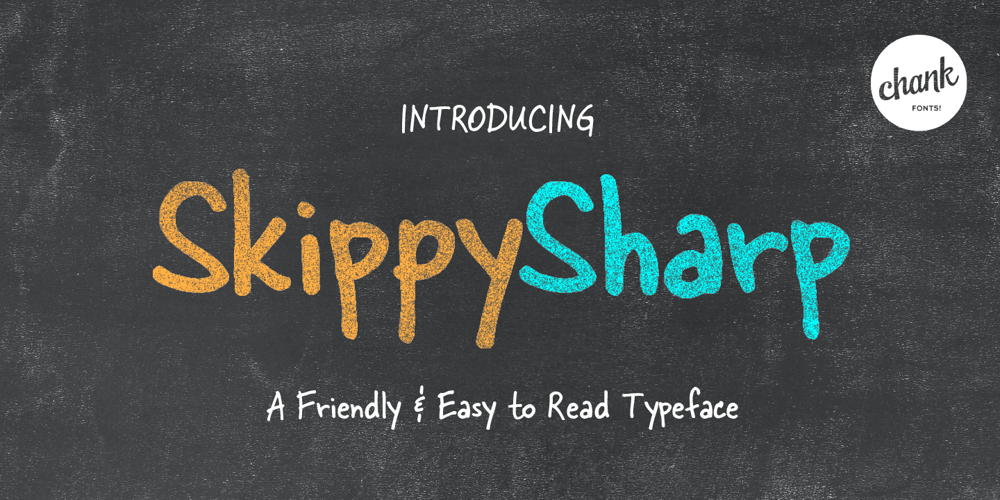
Skippy Sharp
Skippy Sharp font
Skippy Sharp Font Family was designed by Chank Diesel and published by Chank. Skippy Sharp contains 1 styles and family package options. Skippy Sharp was drawn by Skippy McFadden in 1995 and faxed to Mister Chank Diesel. Chank completed the character set, added extensive kerning and created a very friendly, informal marker handwriting font. The font is also enhanced for OpenType use with Contextual Alternates for a more natural and organic handwriting style, and true Small Caps, too.